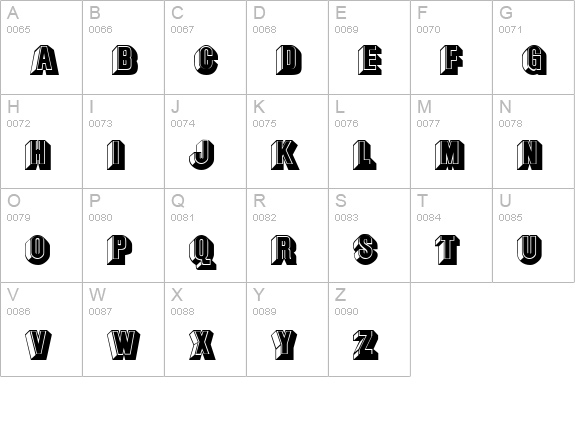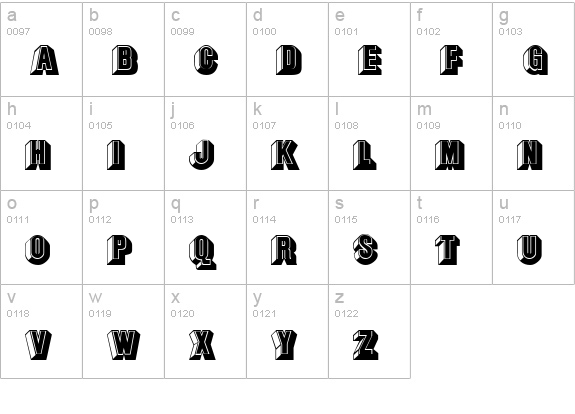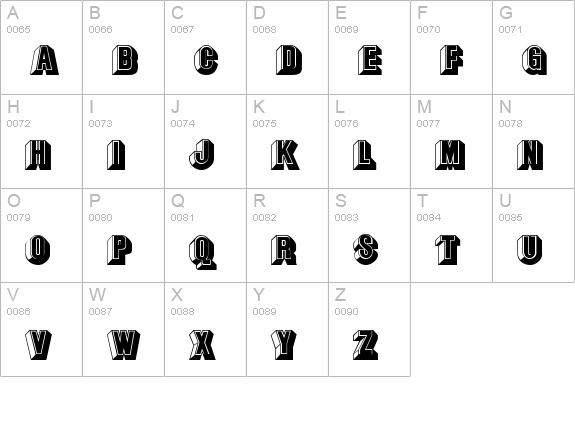
Chocolate Normal Font Details
Chocolate Normal is the standard, neutral variant in the Chocolate typeface family \xE2\x80\x94 well suited to general body text, paragraphs, and standard typographic work.
Discover the delectable charm of Chocolate Normal font, a mouth-watering typeface that will add a touch of sweetness to your projects. With its smooth curves and elegant design, this font exudes a sense of sophistication and warmth. Perfect for creating invitations, menus, branding materials, and more, Chocolate Normal is a versatile choice for any design need. Best of all, Chocolate Normal font is completely free to download at FontsMarket.com. So, indulge your creative cravings and add a sprinkle of chocolatey goodness to your next project with this delightful typeface.